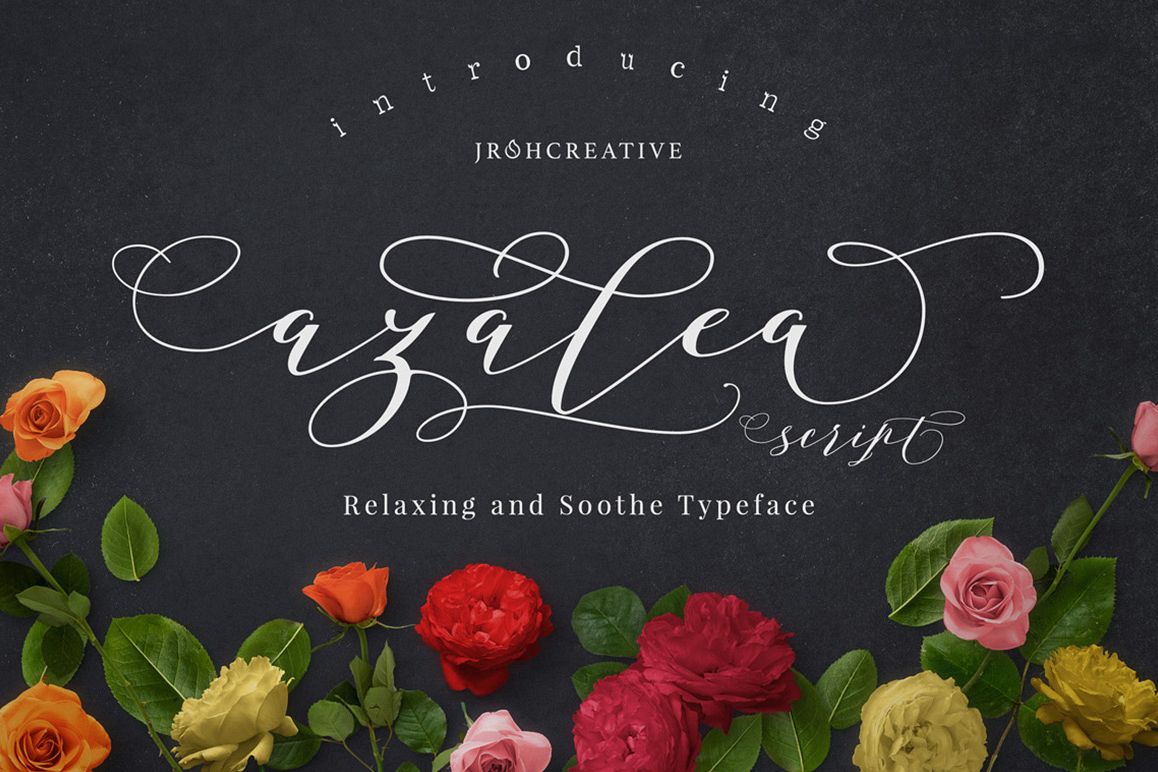
Azalea Script
Azalea-update-Ligature Alternate
Hi...Please welcome my latest font...Azalea Script. I create this font with my soul to share the feeling of relax, soothe, cozy, love and much of happiness :)What You Get
• 701 Glyphs to explore, Standard+Alternative
• Standard Ligatures,
• Contextual Alternates
• Stylistic alternates